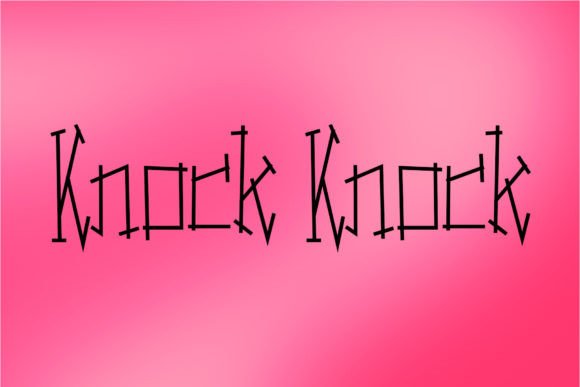
**Knock Knock: A Font That Will Make Your Projects Pop**
Knock Knock is not your average font. It's a display font that's full of personality and charm. With its whimsical and quirky style, Knock Knock will add a touch of fun to any project you're working on.
Whether you're creating invitations, greeting cards, or social media posts, Knock Knock is the perfect font to add a touch of whimsy and personality. It's also great for branding and logos, as it will help your business stand out from the crowd.
* "Knock Knock is the perfect font for adding a touch of fun to my designs. I love its whimsical and quirky style." - Sarah M.
* "I used Knock Knock to create a logo for my new business, and it turned out perfectly! The font is so unique and eye-catching, and it really helped my business stand out from the crowd." - John D.
* "Knock Knock is my go-to font for invitations and greeting cards. It's always a hit with my friends and family, and it makes my projects look so much more polished." - Mary S.
**Here are just a few of the benefits of using Knock Knock:**
* It's unique and eye-catching, so it will help your projects stand out from the crowd.
* It's versatile and can be used for a wide range of projects, from invitations to logos.